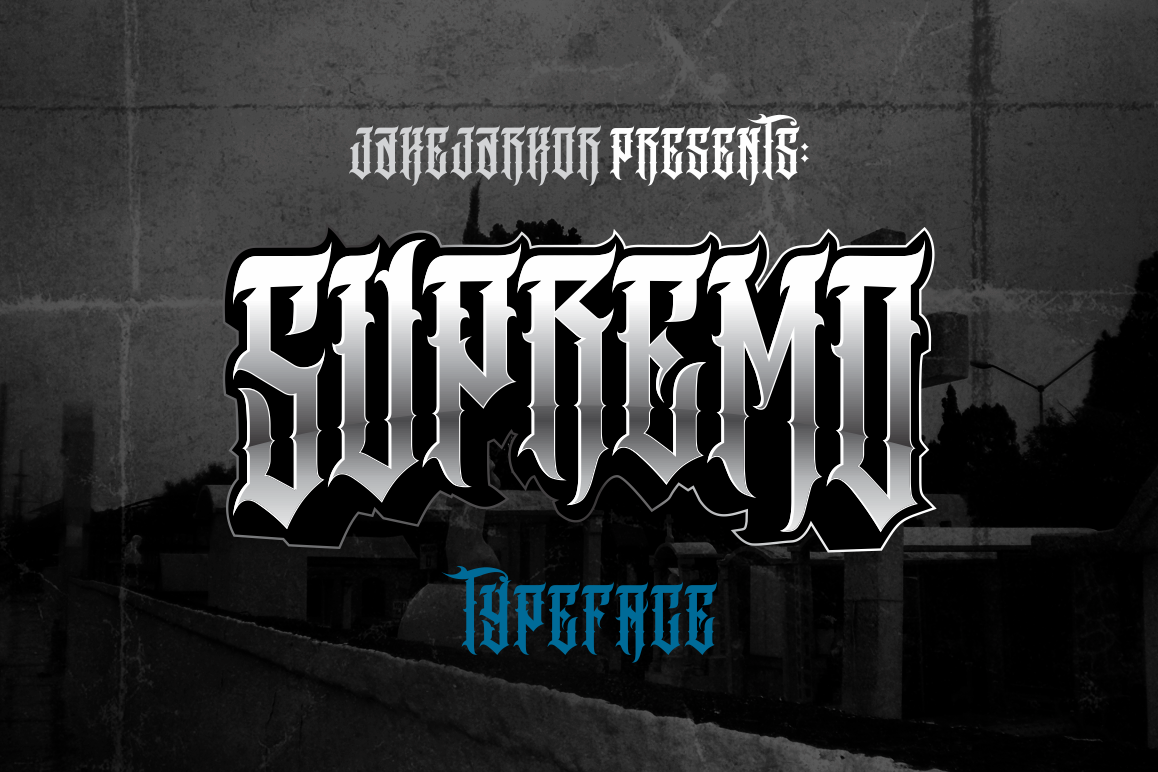
SUPREMO
Jake Jarkor Presents:
SUPREMO is a typeface inspired in tattoo letters, chicano culture and street art. It works well with normal size text, but it works even better for large displays, short words, or even just to incorporate a few or single characters in a design. Suitable for many creative products & tattoo designs, like posters, t-shirt, street wear, logo, signage, headlines, etc.
Jake Jarkor Presenta:
SUPREMO es una tipografía inspirada en el tatuaje, la cultura chicana y el arte de la calle. Funciona bien con el texto de tamaño normal, pero funciona incluso mejor para diseños de gran tamaño, palabras cortas, o incluso sólo para incorporar un par de caracteres individuales en el diseño. Es una tipografía muy conveniente para productos creativos y diseños para tatuajes, como carteles, playeras, logotipo, señalización, titulares, etc.